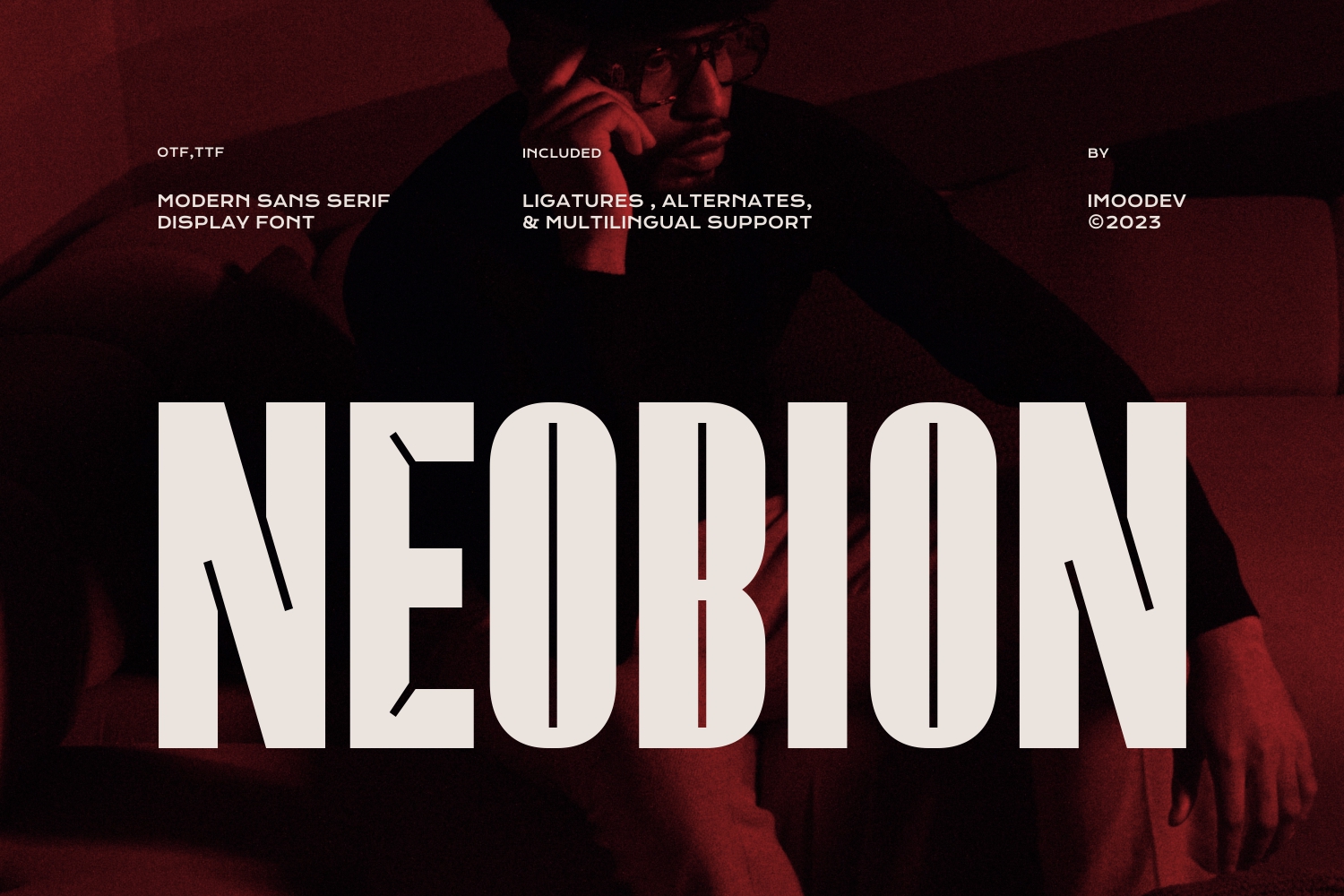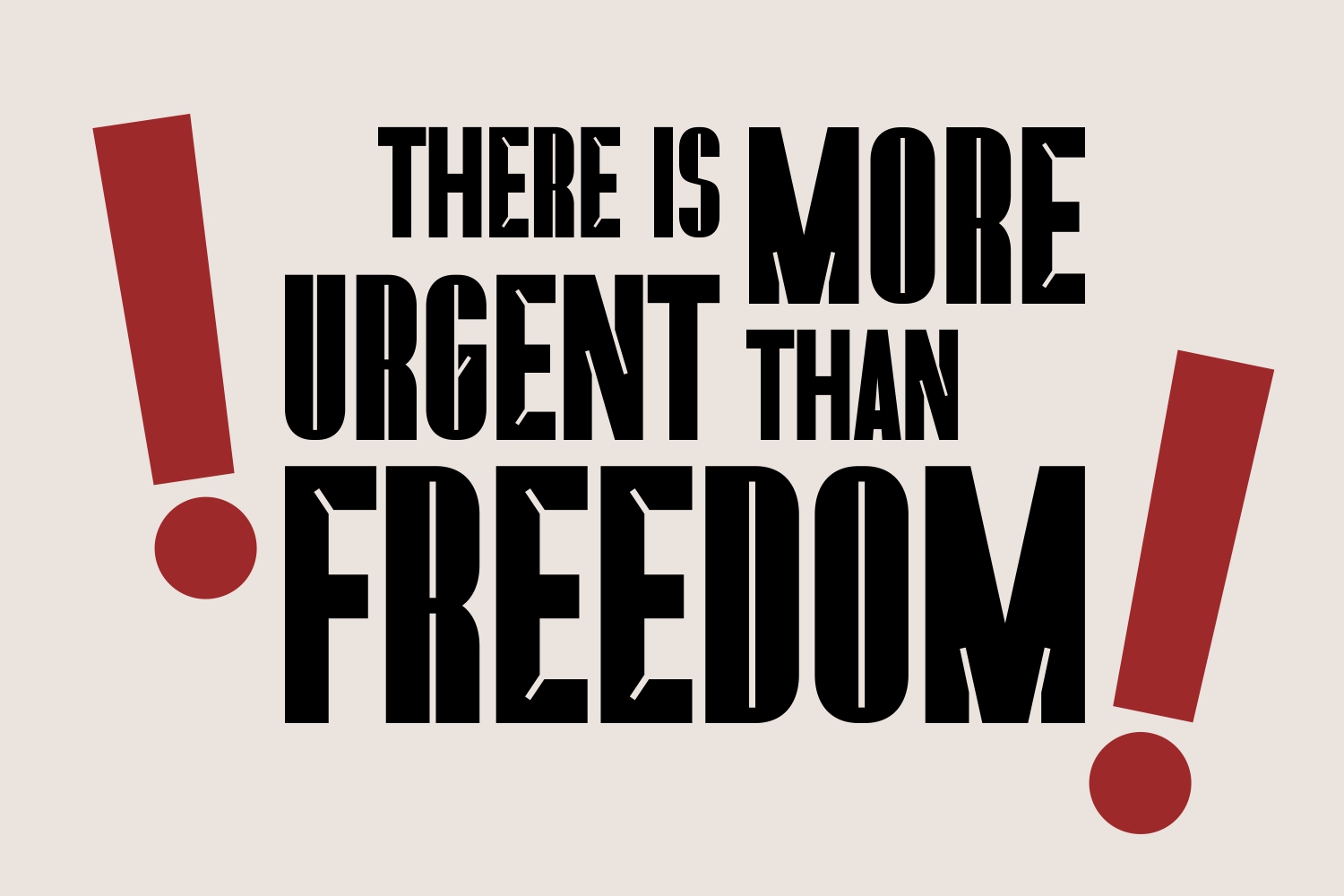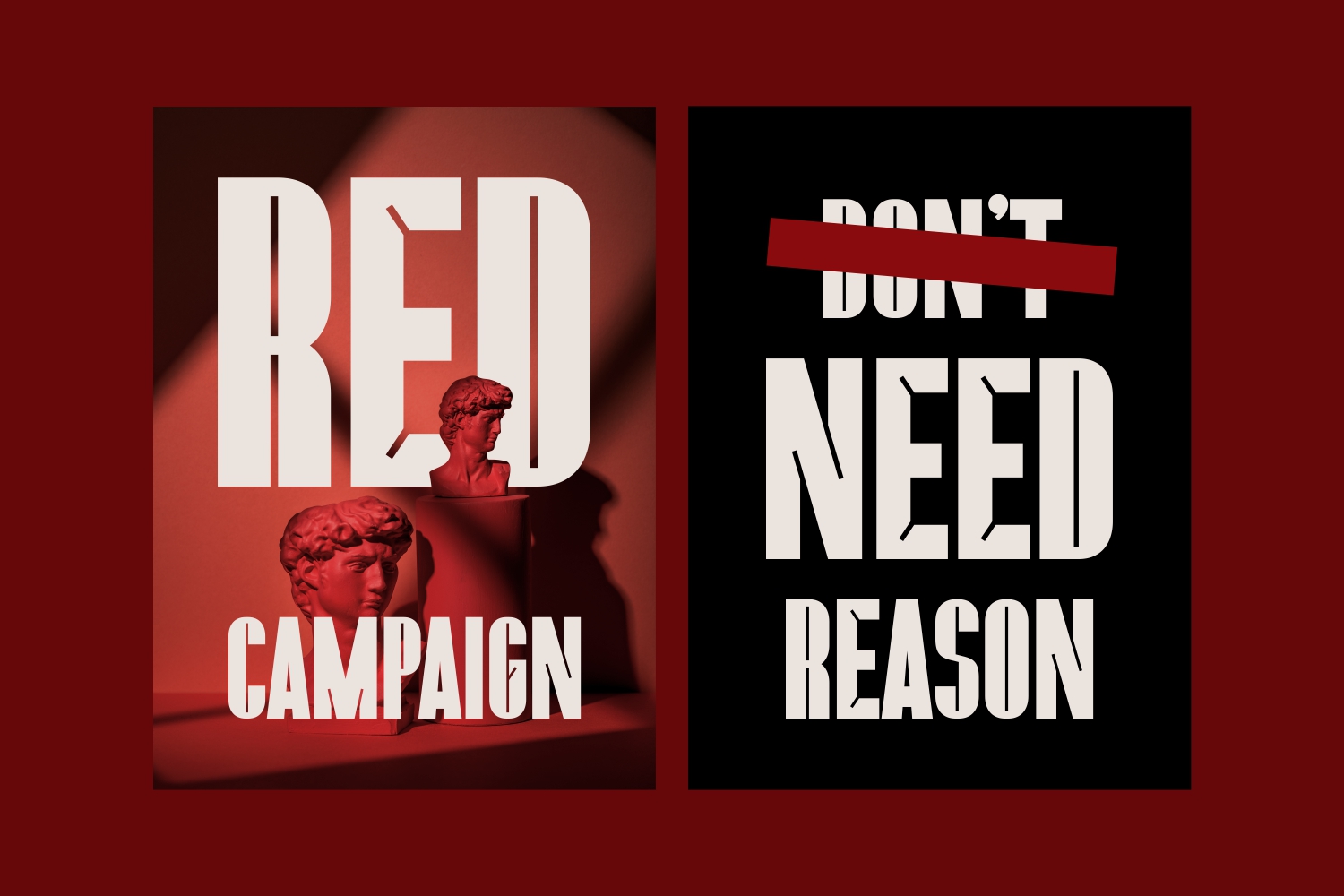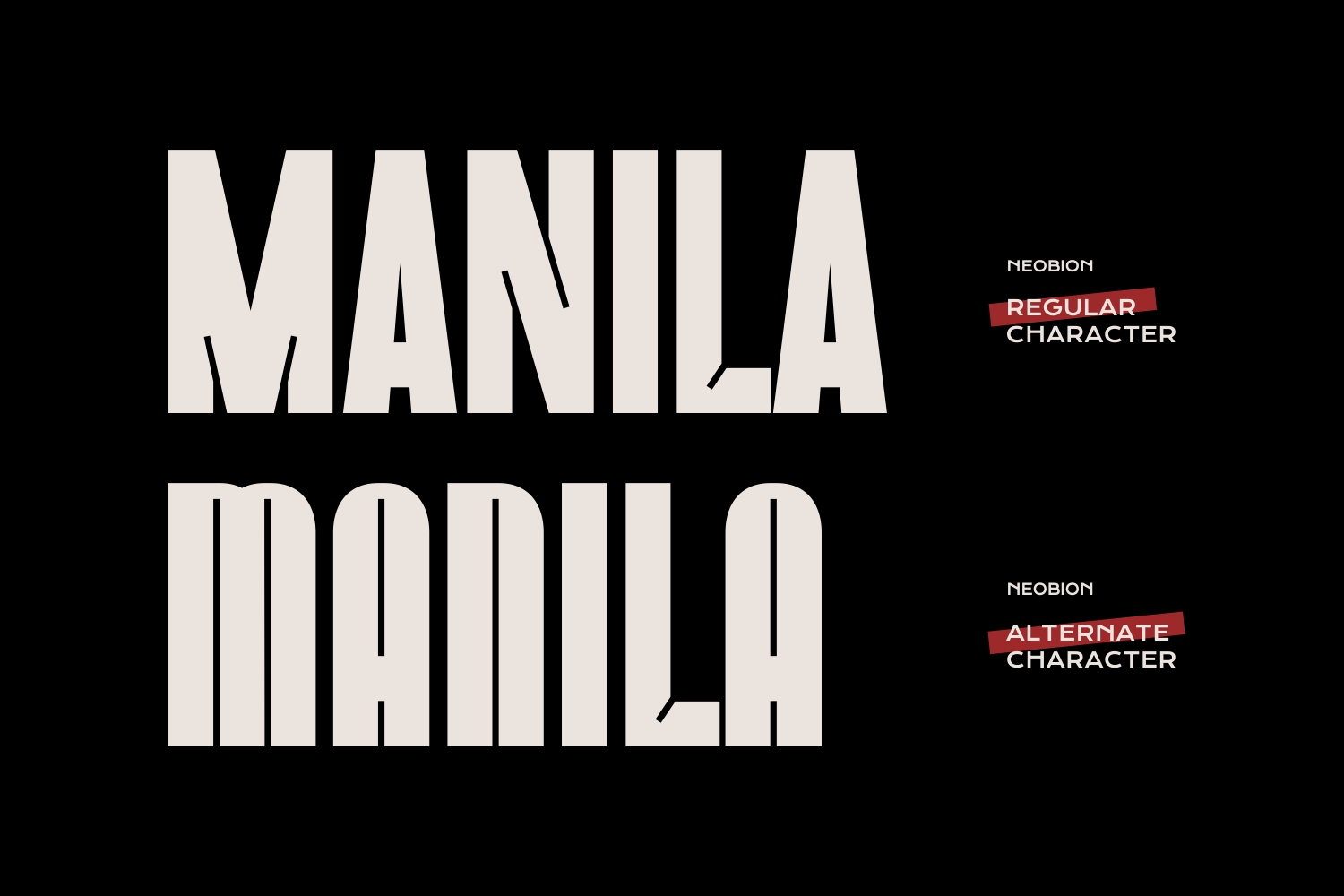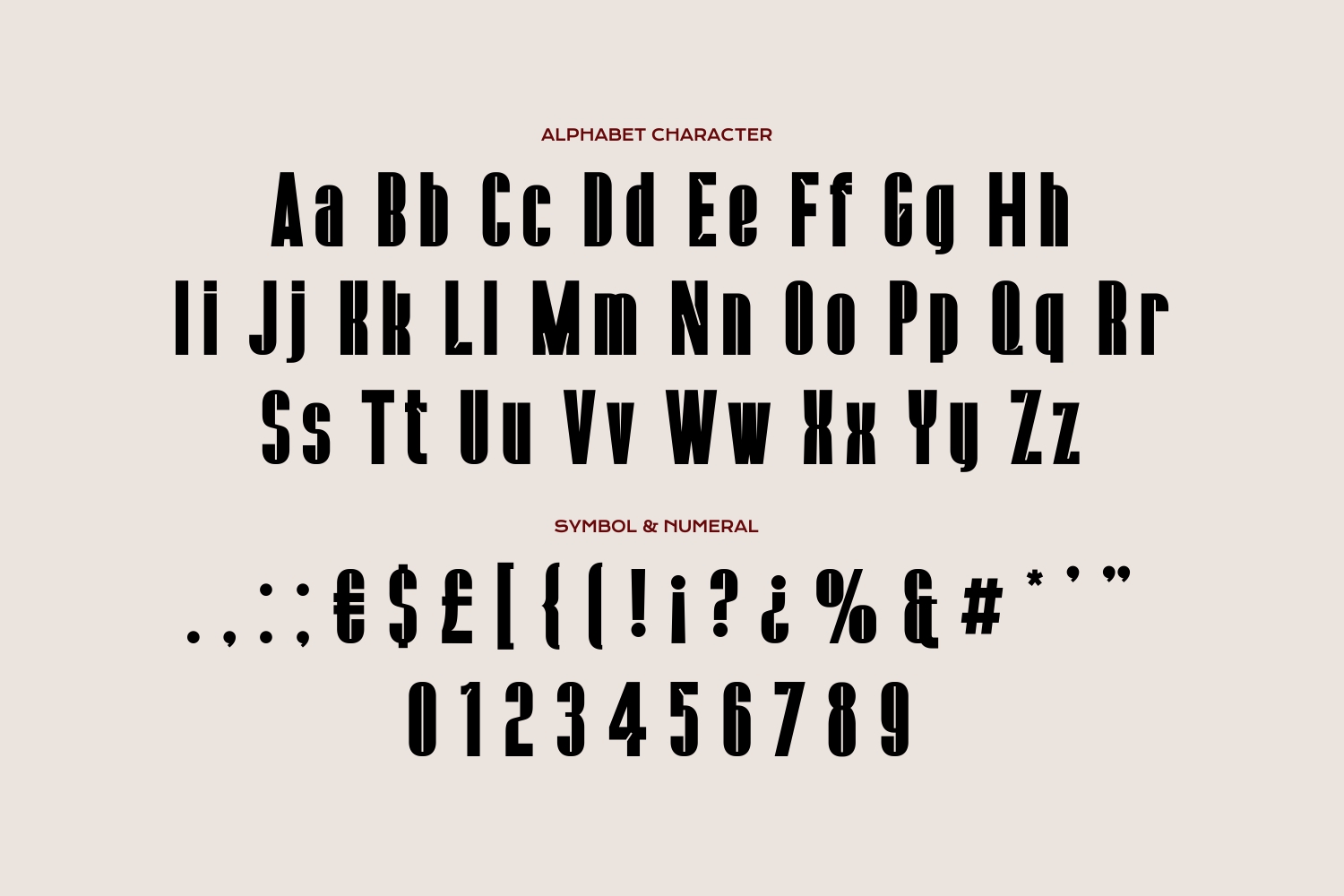
Neobion is a bold modern sans serif display font that commands attention with its tall, condensed structure and striking geometric cuts. Designed to make a strong visual statement, it combines sharp edges and clean lines with a contemporary style perfect for editorial headlines, campaign posters, branding, and striking visual identities. Its strong vertical emphasis gives every word a powerful presence, making it ideal for projects that demand impact and authority.
Equipped with ligatures, alternates, multilingual support, and a full range of symbols and numerals, Neobion offers versatility while maintaining its bold aesthetic. Designers can experiment with alternate characters to add variety and uniqueness to each project, ensuring adaptability across fashion campaigns, music posters, magazine covers, and urban branding. With its fearless, modern aesthetic, Neobion is built to turn any text into a bold visual statement.